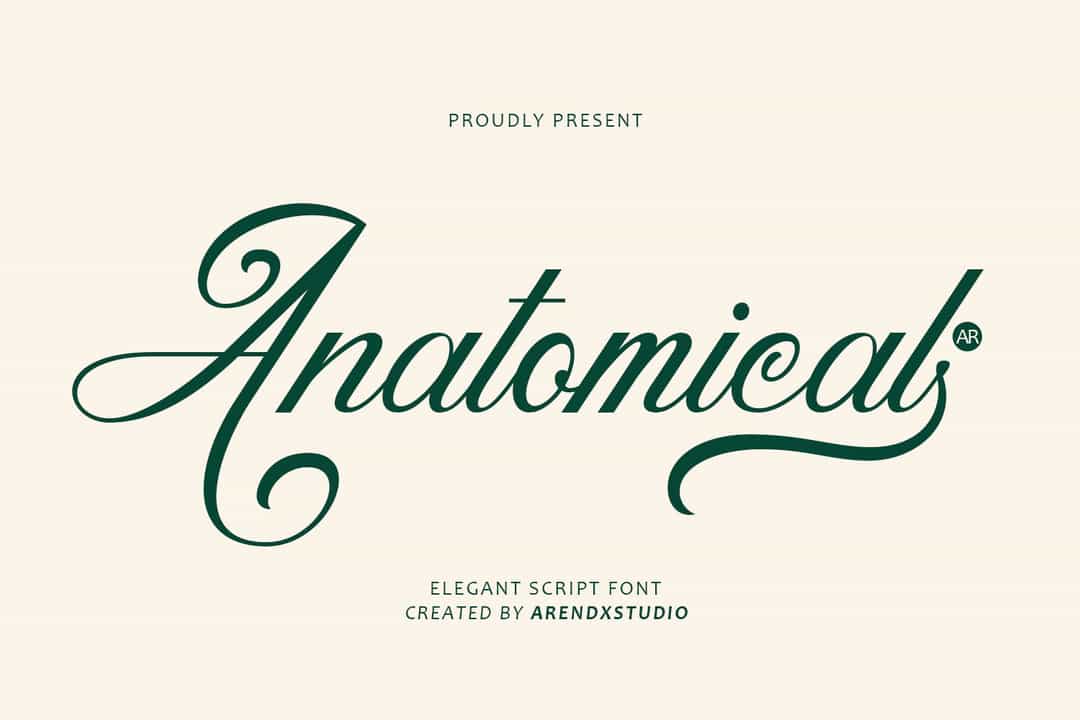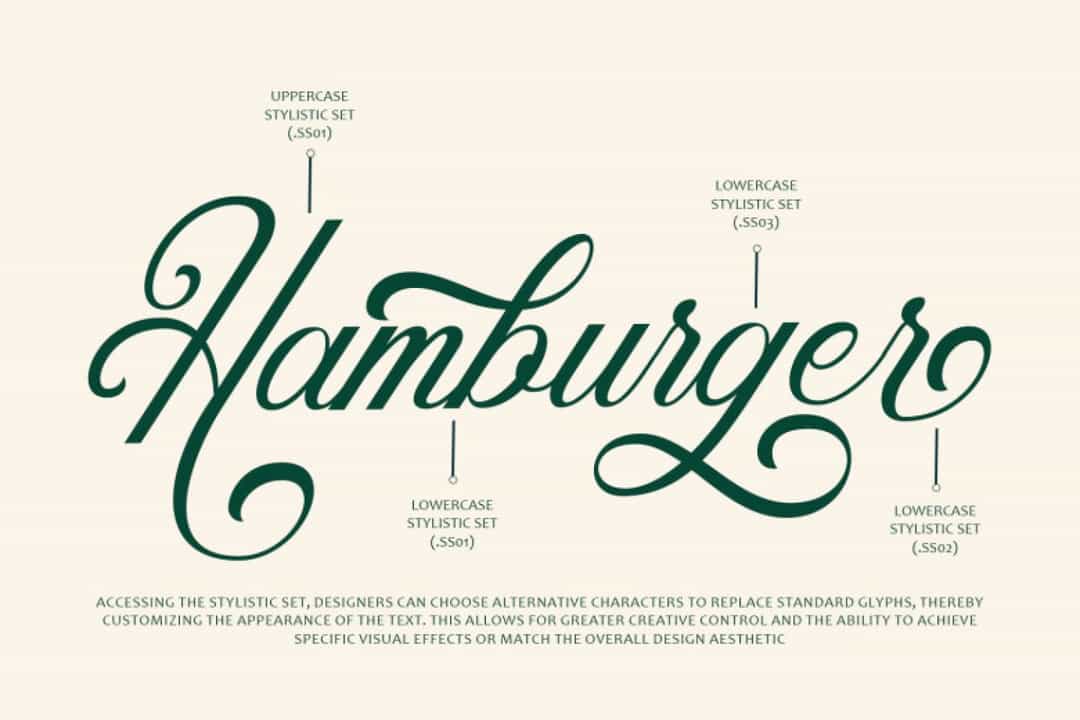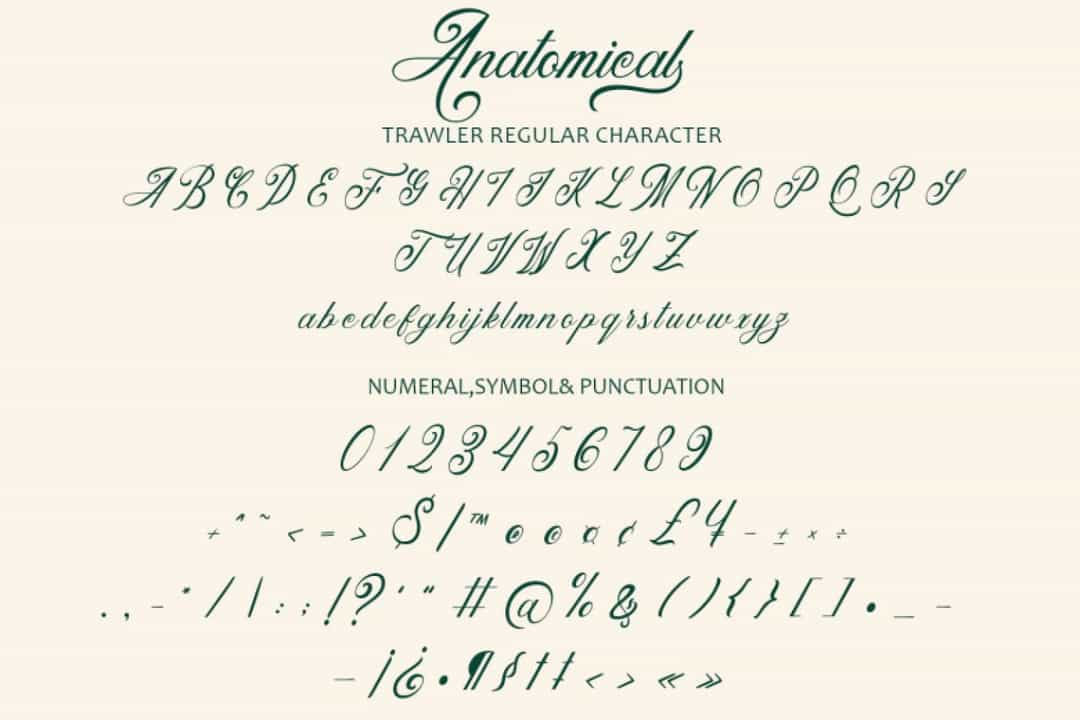
Anatomical is a captivating script font with grace and elegance, featuring flowing strokes that exude romance. Anatomical lends timeless beauty to branding, invitations and elegant designs alike – perfect for branding purposes as well as invitations. It captivates people through its graceful charm.